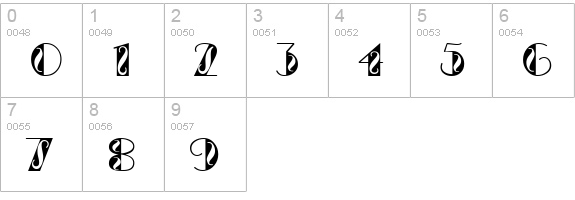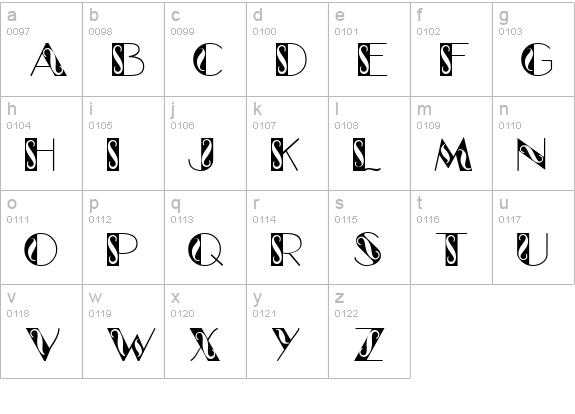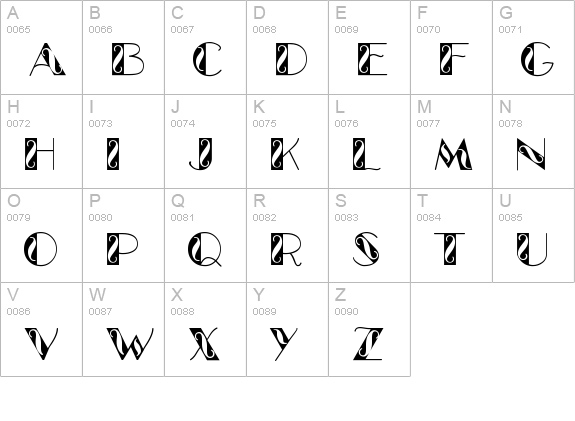
GlitzyCurl Font Details
Introducing GlitzyCurl font, a whimsical and charming typeface that exudes elegance and playfulness. With its delicate curls and intricate details, GlitzyCurl is perfect for adding a touch of glamour to any design project. Whether you're working on invitations, branding, or social media graphics, this font will surely make a statement. The best part? GlitzyCurl is completely free to download at FontsMarket.com. You can easily access this stunning font and elevate your creative projects without breaking the bank. Embrace the beauty and sophistication of GlitzyCurl in your designs today!